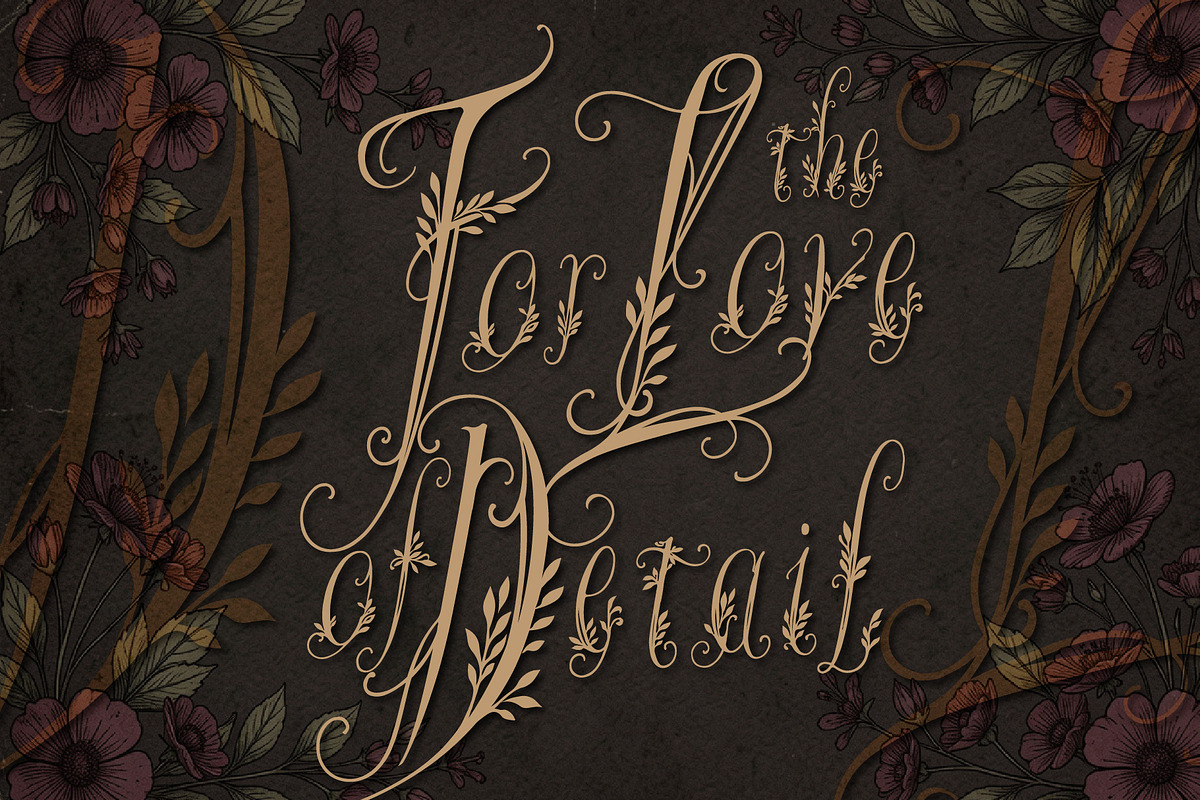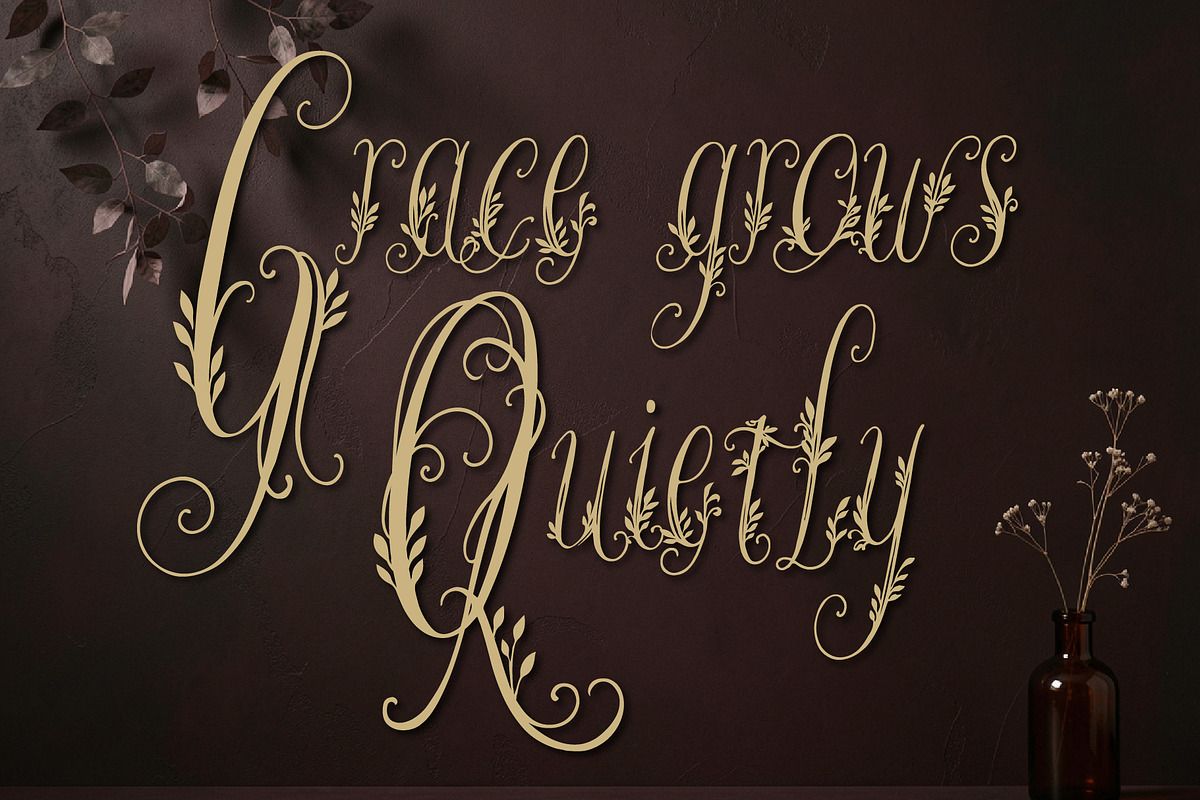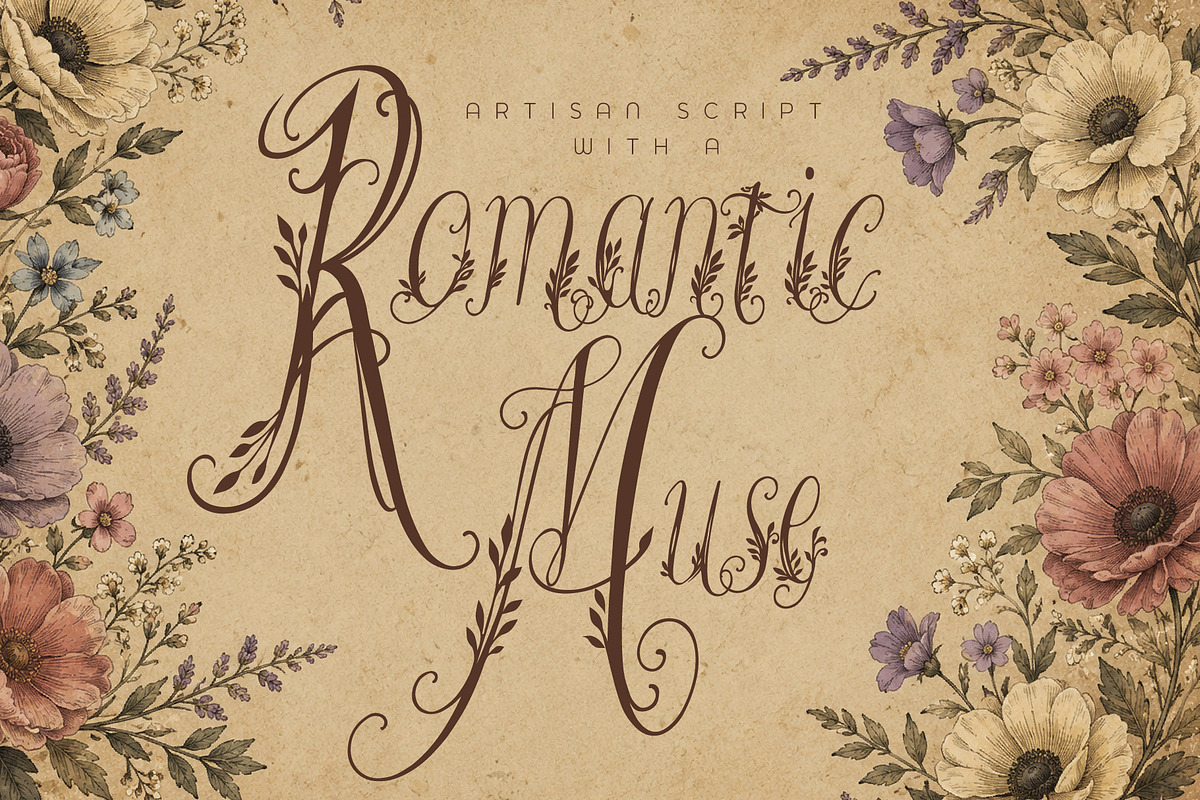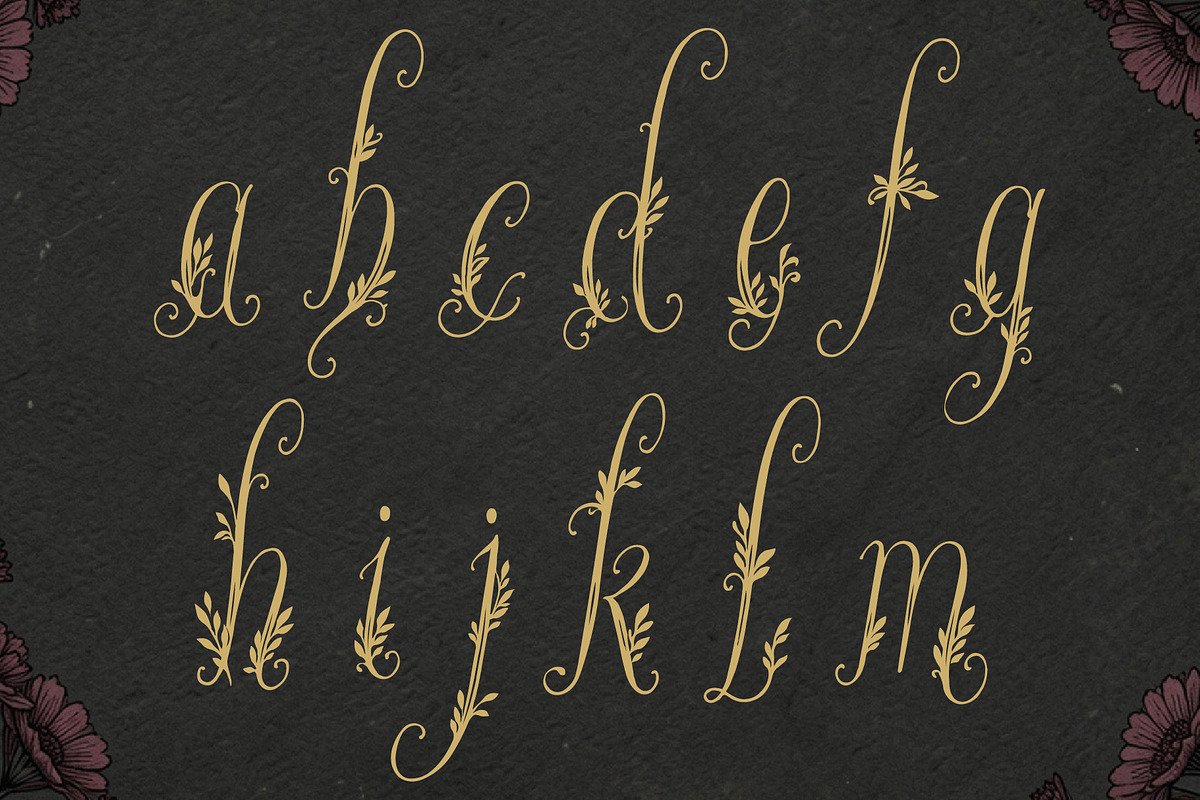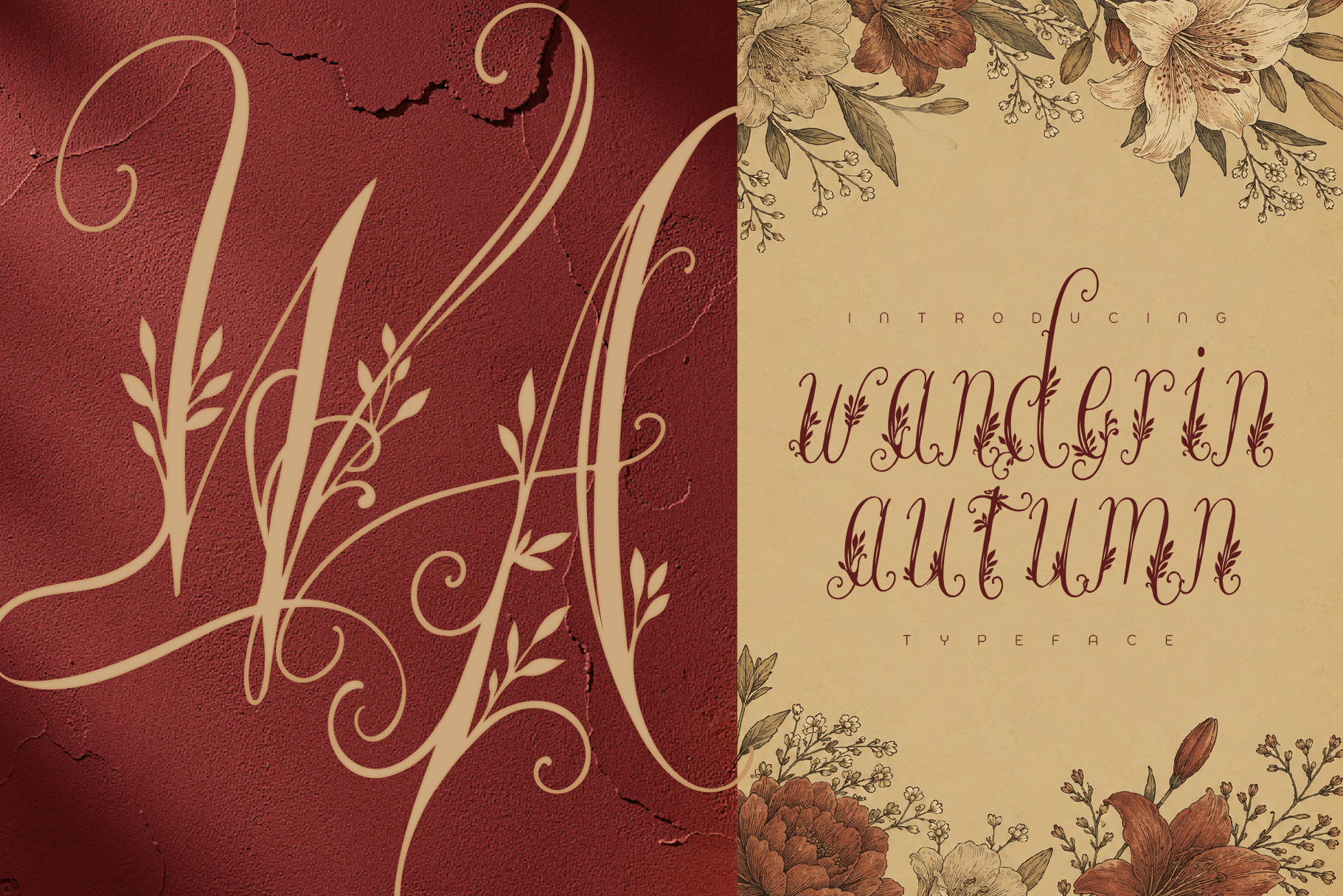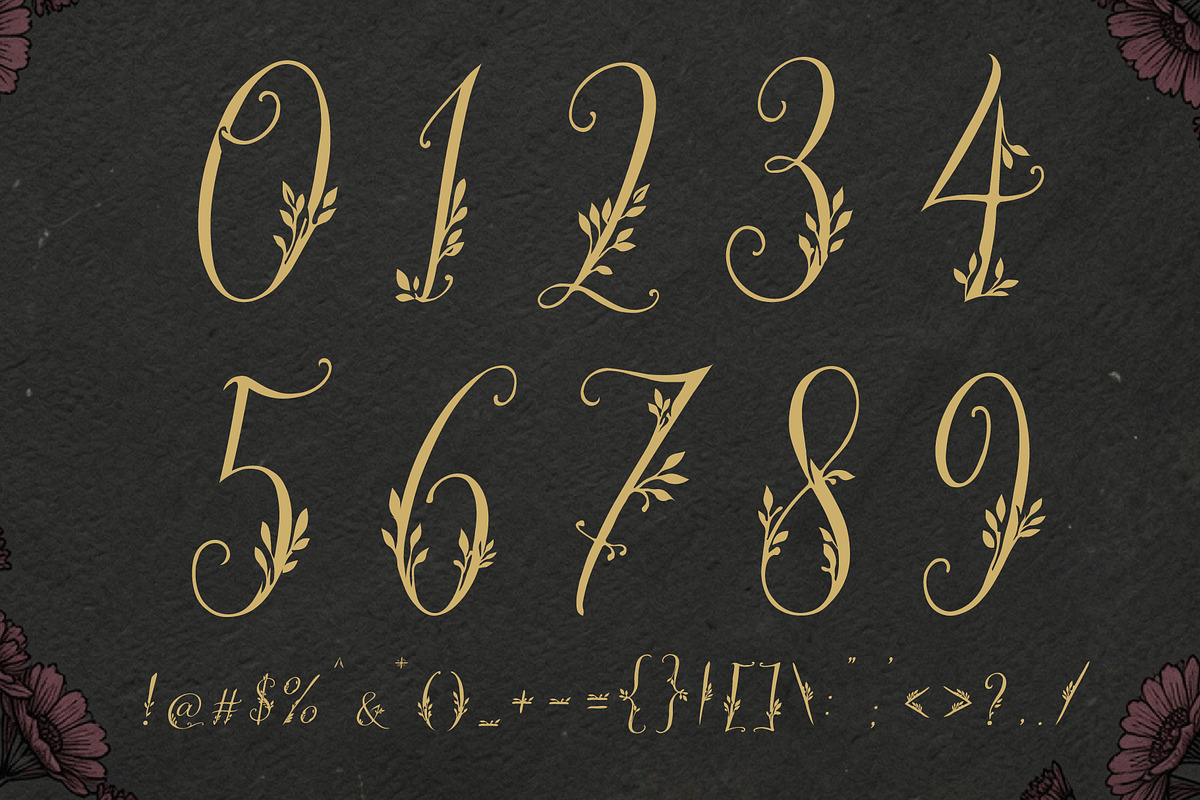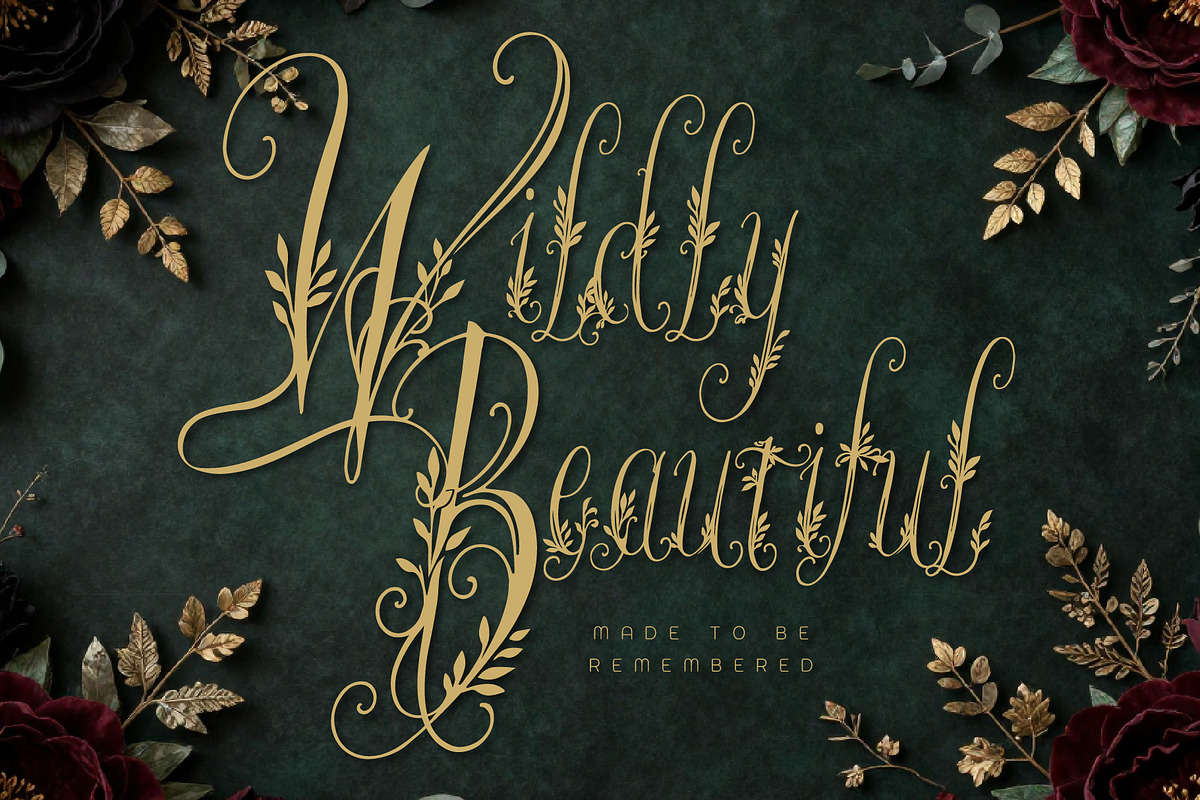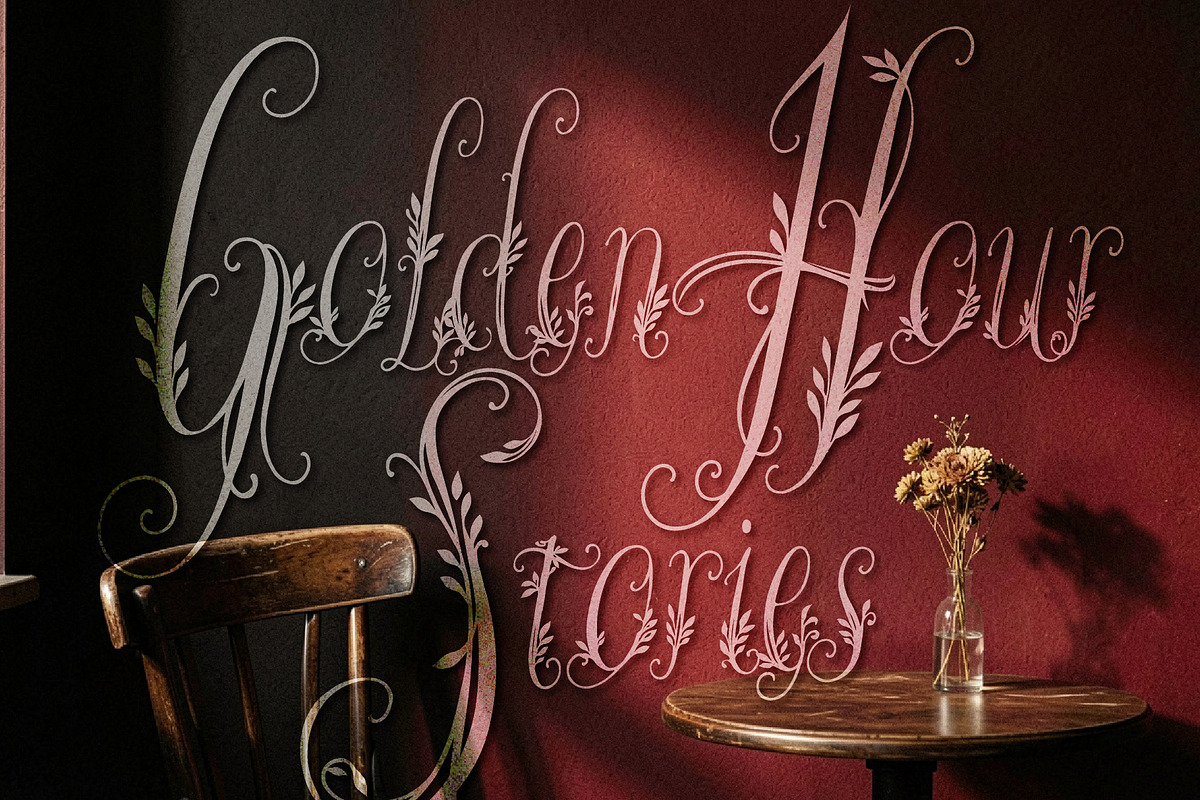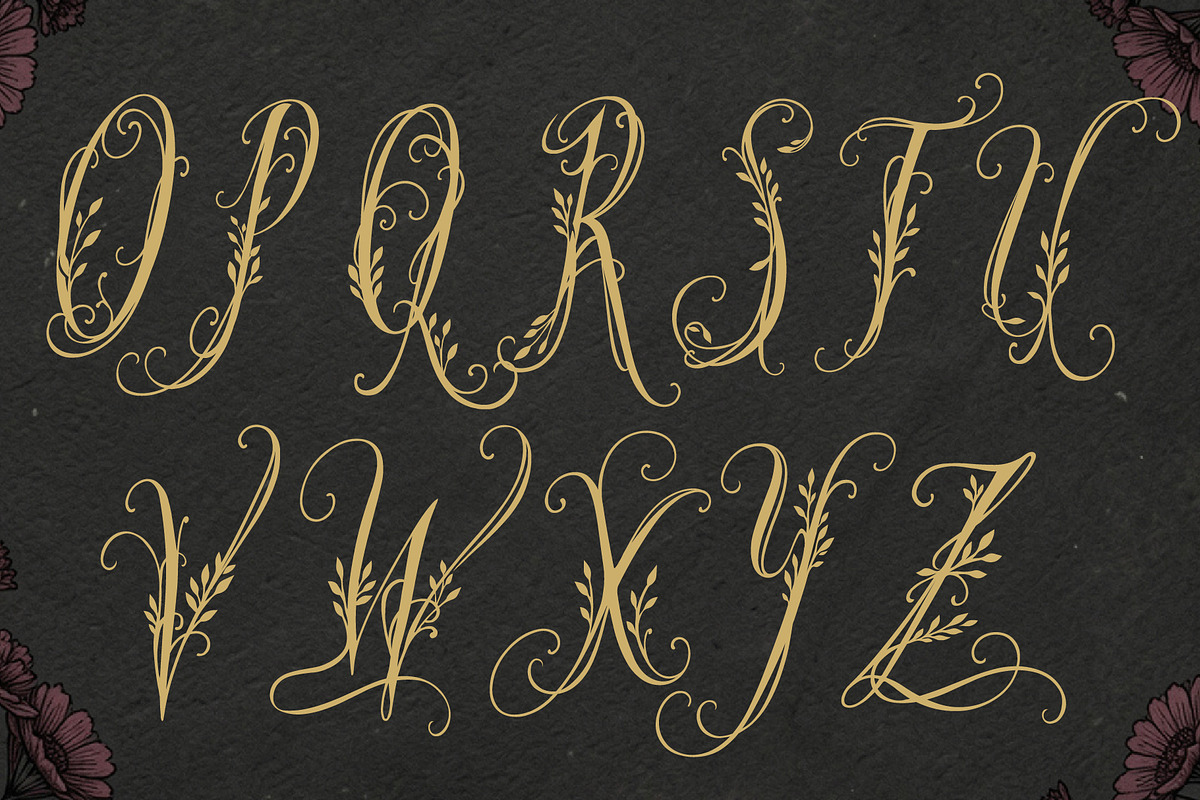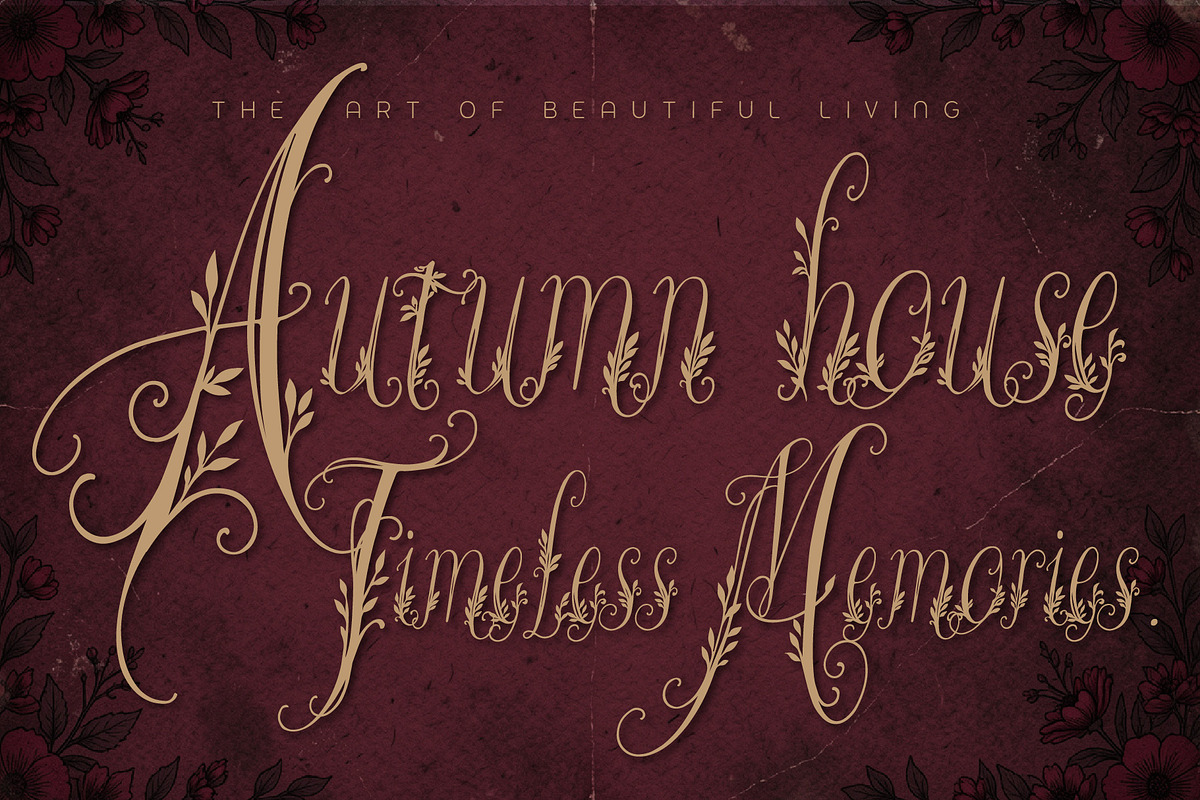
Wanderin Autumn Artisan Floral font
Wanderin Autumn is an artistic script display typeface inspired by the graceful beauty of autumn, vintage calligraphy, and handcrafted ornament. Featuring elegant laurel-inspired flourishes, flowing calligraphic swirls, artisan curves, and beautifully decorative special glyphs, it brings a refined yet expressive character to every word.
Designed for projects that need a touch of romance, heritage, and handcrafted luxury, Wanderin Autumn works beautifully for logos, wedding stationery, invitations, book covers, branding, packaging, editorial titles, posters, and elegant seasonal designs.
Its ornamental alternate glyphs and extended swashes allow you to create unique lettering compositions with a sophisticated, artistic finish.